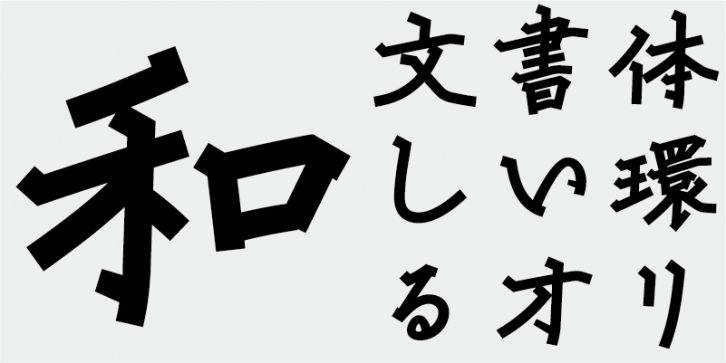
This gothic (sans-serif) style typeface is characterized by glyph structures with a dignified and masculine impression. The typeface has linear structures deliberately designed to retain visual softness.
This font includes top 1,000 kanji characters chosen from character frequency tables made by newspaper companies, publishing houses and linguistic research institutes, plus 206 kana characters and punctuation marks.
In Japanese font production today, the 7,000 characters in the JIS standard are considered essential. But, do all fonts really need 7,000 characters? In the age of phototypesetting, far fewer characters were needed. FONT1000, a group of independent type designers, started with that simple question. We have selected the minimum 1,000 kanji (ideographic) characters needed for typesetting in Japanese and actively created typefaces and fonts to support it. This 1,000-kanji-character set was selected using character frequency data compiled by newspaper companies, publishing houses and linguistic research organizations, etc., and also includes kana syllabic characters and punctuation marks. FONT1000 was formed in 2001 with 25 designers and 25 typefaces. Today we have 130 typefaces and have grown to include nearly 40 members, making it possible to work on fonts with more characters.